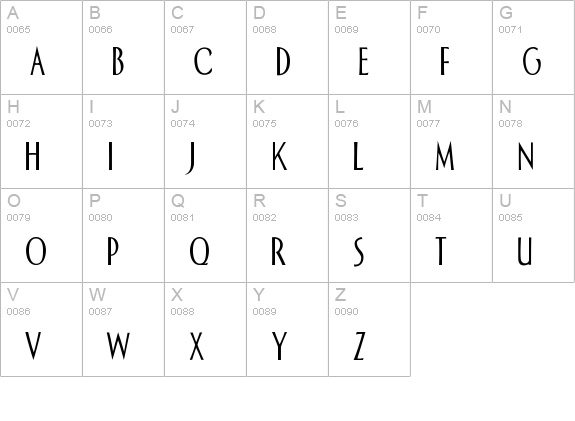
Allise font is a beautifully crafted typeface that exudes elegance and sophistication. Its delicate curves and graceful lines make it perfect for a wide range of design projects, from wedding invitations to branding materials. The timeless appeal of Allise font adds a touch of class to any layout, making it a versatile choice for both print and digital applications. What sets Allise font apart is not only its stunning design, but also the fact that it is available for free download at FontsMarket.com. This means that you can easily access this high-quality font without any cost, making it a valuable addition to your font collection. Whether you're a graphic designer, a blogger, or a small business owner, Allise font is sure to elevate your projects and help you stand out from the crowd. Don't miss out on this opportunity to enhance your designs with the beauty of Allise font. Download it for free today at FontsMarket.com and start creating stunning visuals that leave a lasting impression.